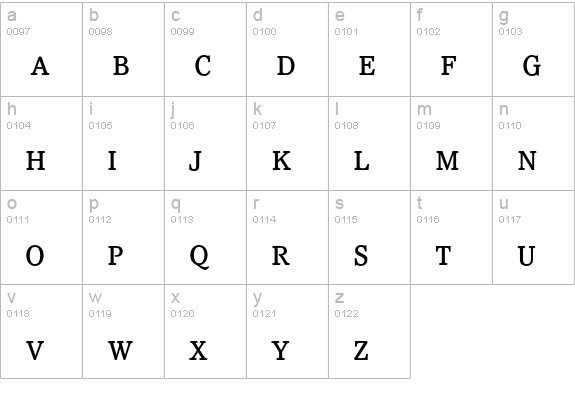
PacellaSCEF-Book is a comfortable, highly readable variant in the PacellaSCEF typeface family \xE2\x80\x94 well suited to long-form body text, articles, and editorial content.
Introducing PacellaSCEF-Book, a stunningly elegant font that combines classic sophistication with modern flair. This versatile typeface boasts a timeless appeal, making it perfect for a wide range of creative projects, from branding and logo design to invitations and editorial layouts. With its clean lines and well-balanced proportions, PacellaSCEF-Book exudes confidence and professionalism. Each letter has been meticulously crafted to ensure legibility at any size, while maintaining a sense of artistic beauty. The result is a font that effortlessly captures attention and leaves a lasting impression. But what sets PacellaSCEF-Book apart is not just its aesthetic appeal, but also its accessibility. This incredible font is available for free download exclusively at FontsMarket.com. That's right, you can now elevate your designs without breaking the bank. Whether you're a seasoned designer or just starting out, PacellaSCEF-Book offers a high-quality, professional font option that won't cost you a dime. Designed with versatility in mind, PacellaSCEF-Book is perfect for both print and digital projects. Its timeless elegance makes it ideal for luxury brands, fashion magazines, elegant wedding invitations, and much more. The clean and refined letterforms ensure readability, even at small sizes, making it suitable for body text as well. So why wait? Enhance your design projects today with PacellaSCEF-Book, the freely available font that combines style, professionalism, and accessibility. Download it now from FontsMarket.com and unlock a world of creative possibilities.